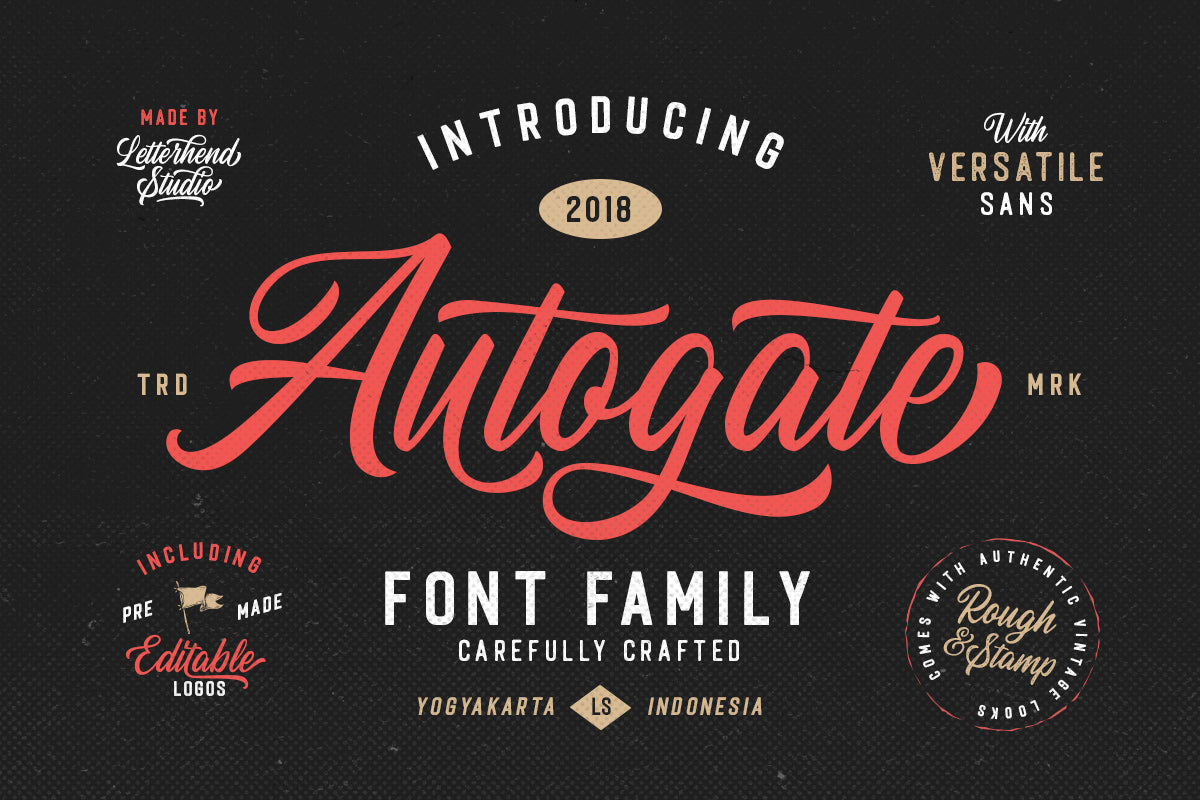
Download and enjoy this Free Autogate Script Font. Cool typeface to showcase your designs in a modern way. Pixelify has featured this amazing and beautiful typeface. You can create professional designs with this fancy font.